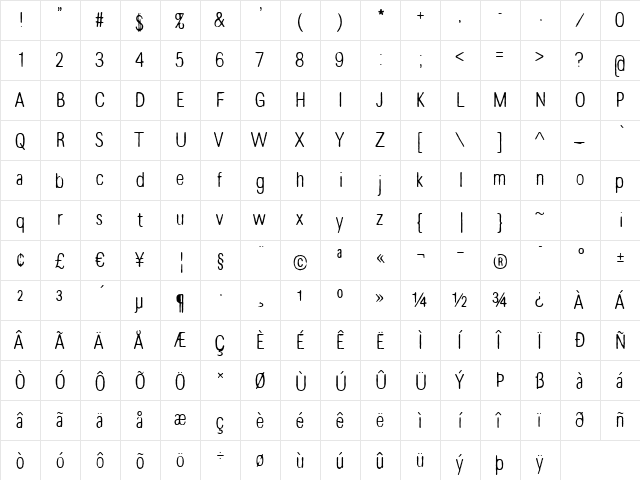
DenimLight Regular Font Preview
DenimLight Regular
Design Context for DenimLight Typeface
DenimLight offers clean, dependable letterforms without strong stylistic allegiance, making it a practical choice for designers who need flexibility. Its slender proportions lend an understated elegance to any composition.
Pro Tip: Use DenimLight in both headline and body roles to test its range before committing to a single application.